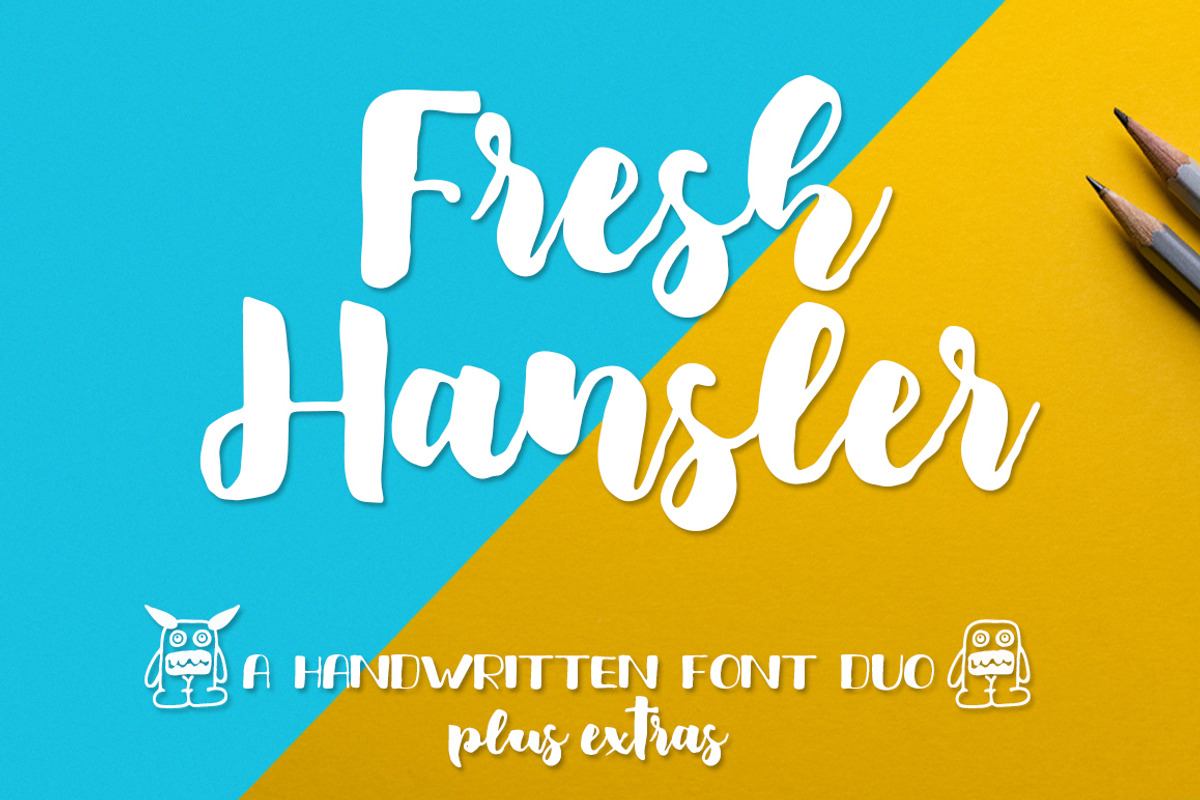
Fresh Hansler - Font Duo Plus Extras Free Download is a versatile and stylish font duo that combines a sleek, modern sans-serif with a beautiful handwritten script. With its clean lines and artistic flair, this font duo is perfect for a wide range of projects, including branding, invitations, logos, websites, and more.
The sans-serif font provides a contemporary, professional look, while the script font adds a personal, creative touch. With additional extras included, such as icons and decorative elements, this font duo gives you everything you need to create custom designs with ease.